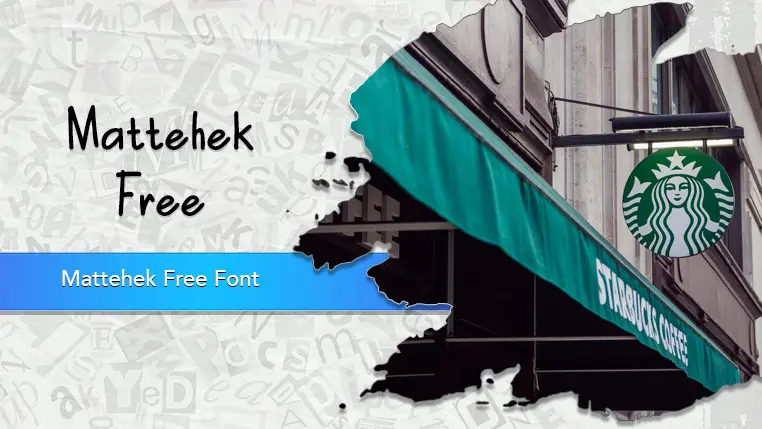
The Mattehek Free font family may be ideal for you if you enjoy working on an artistic design project. The lively, expressive look of this typeface, which was created by Studio Hello Good, makes it ideal for Headlines and Titles, Branding and Logos, Use on products that want to convey strength, modernity, or clear communication, and other light-hearted visual projects.
Regular are the one primary font styles of the Mattehek Free font family. You may build dynamic, visually appealing text layouts with the distinct flair that each style offers. With crisp, readable lines and a relaxed tone.